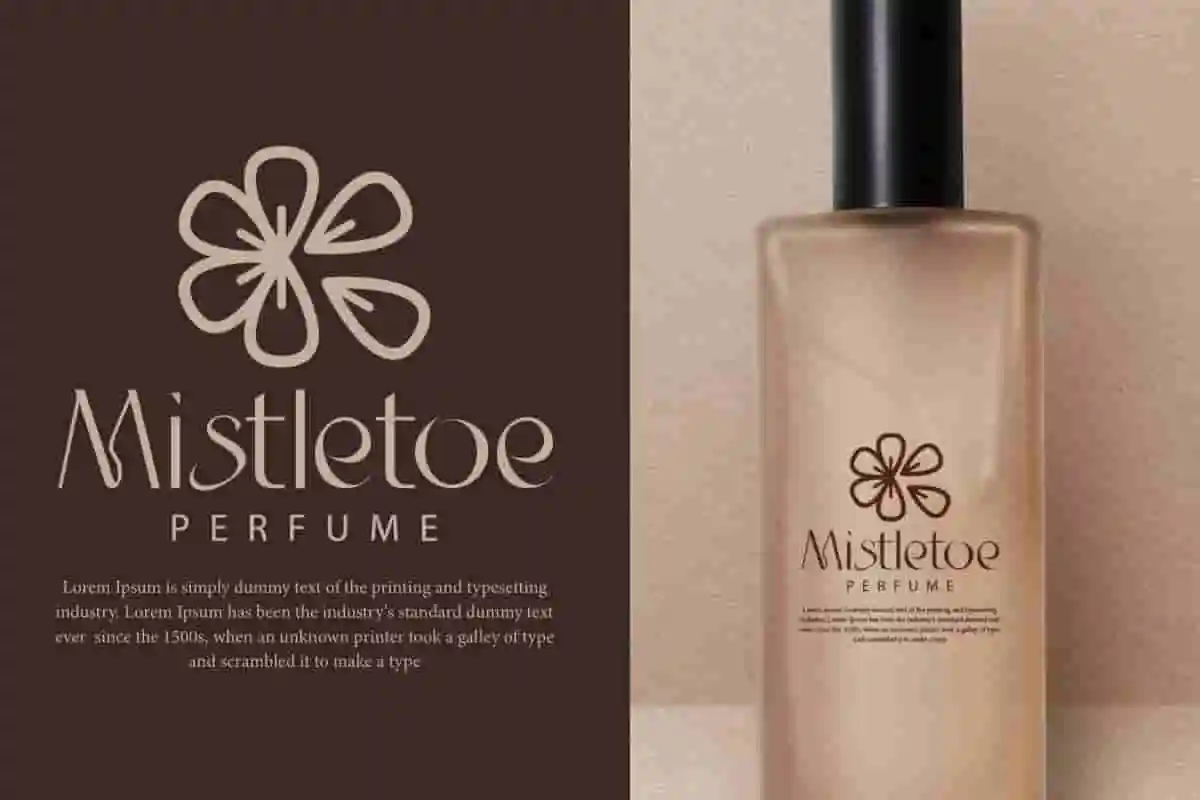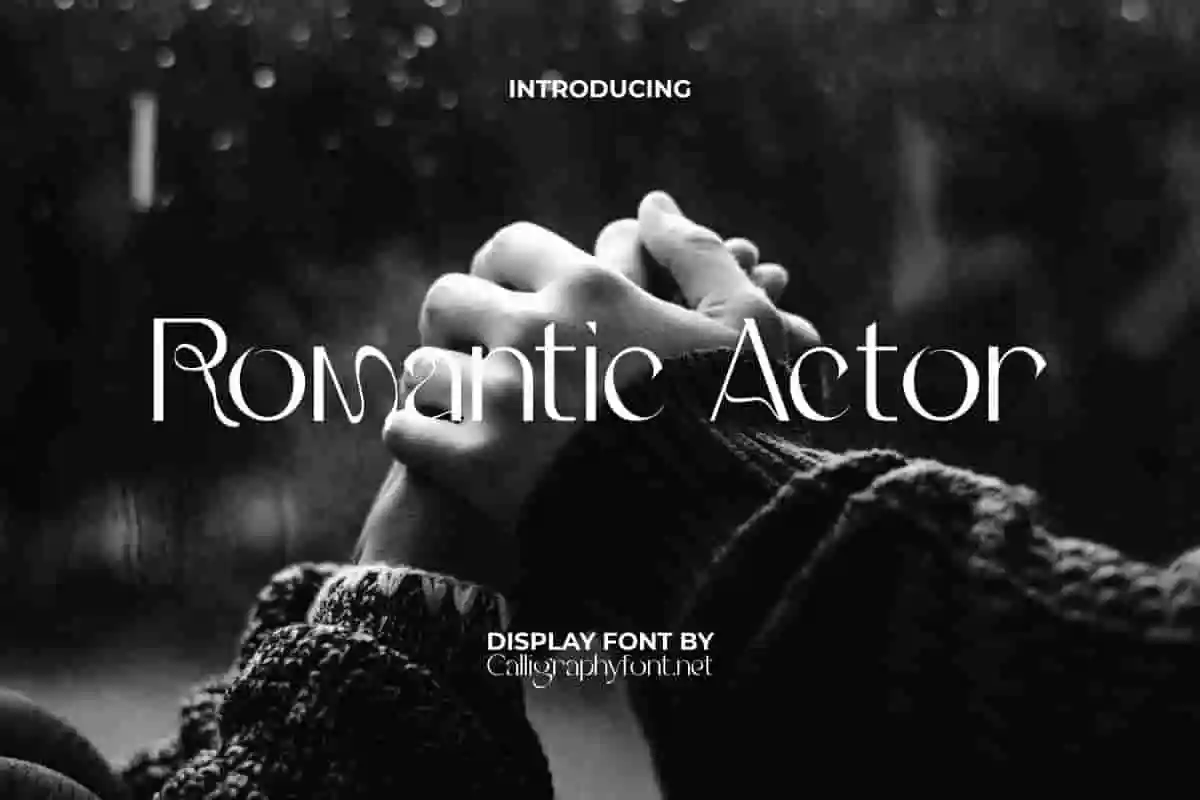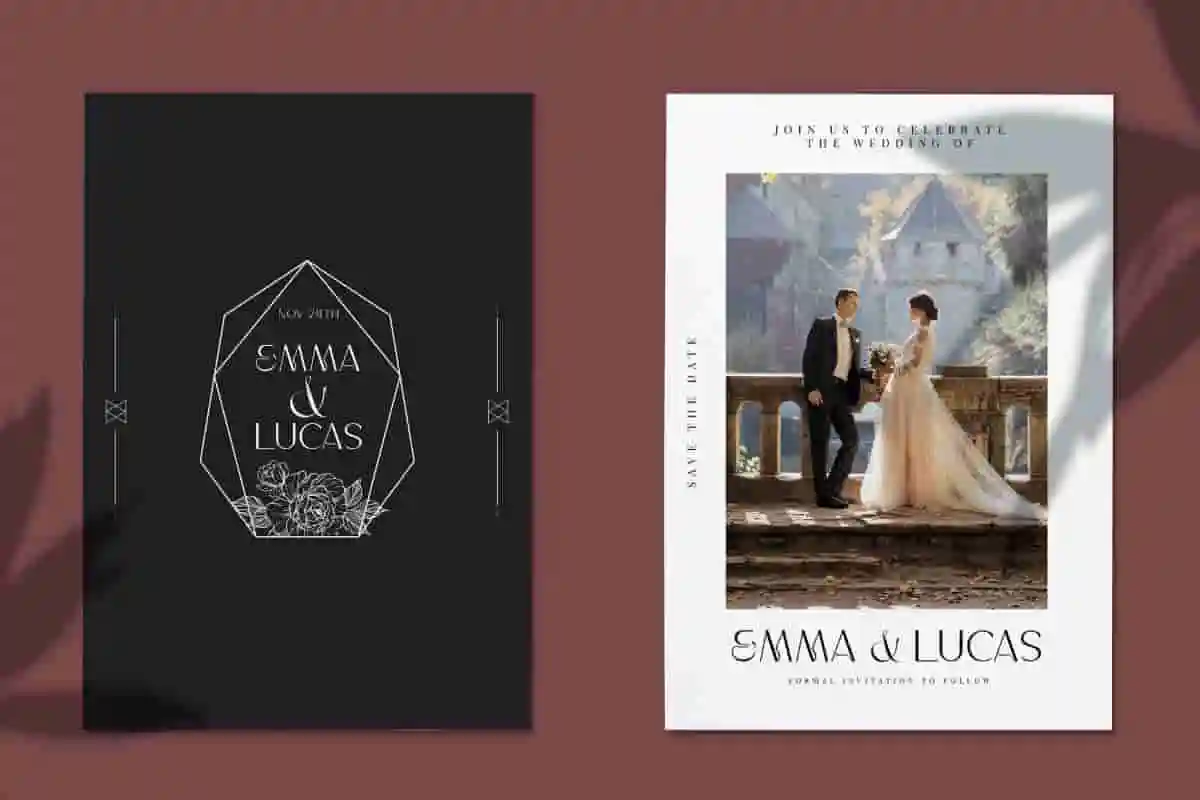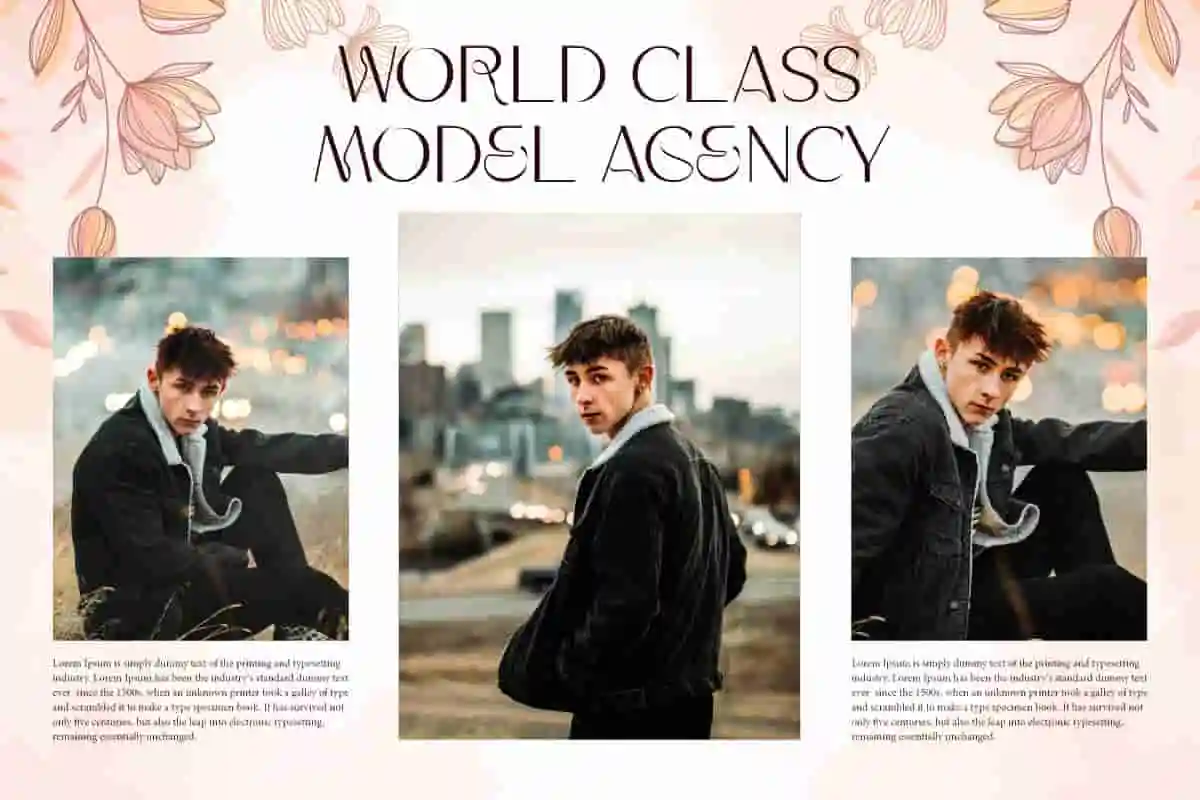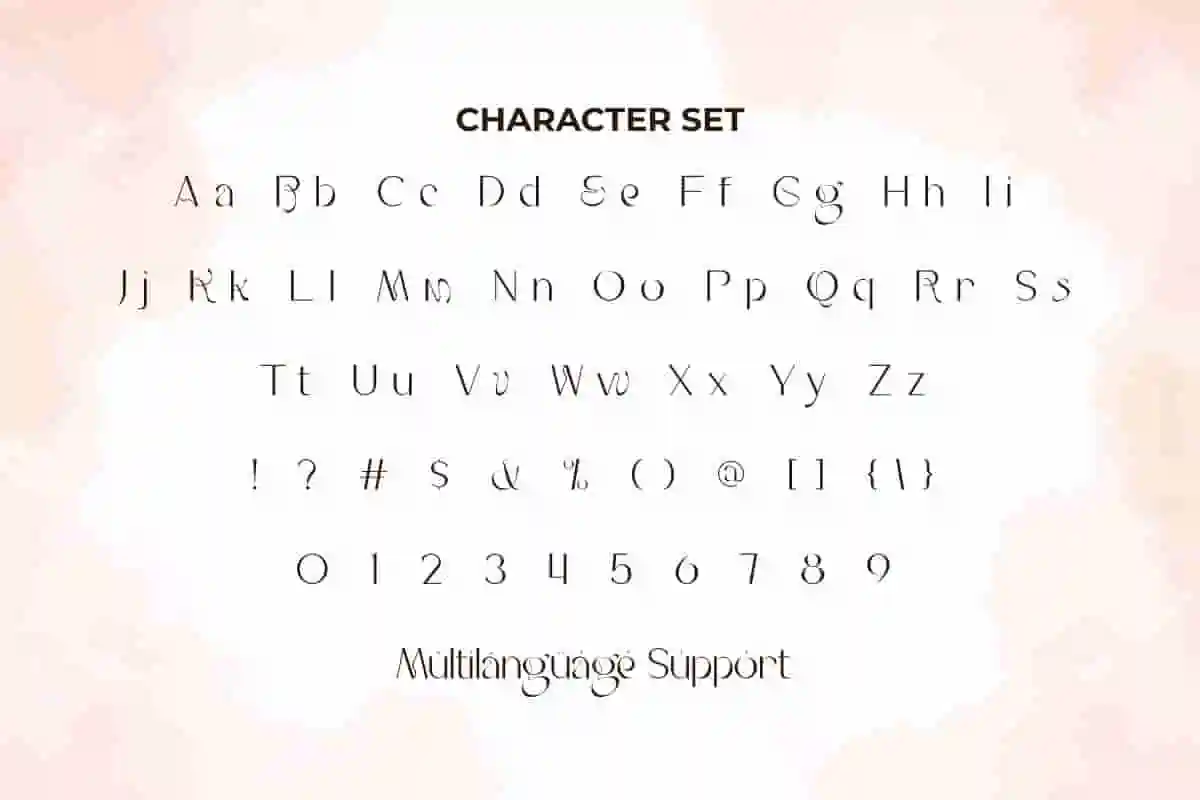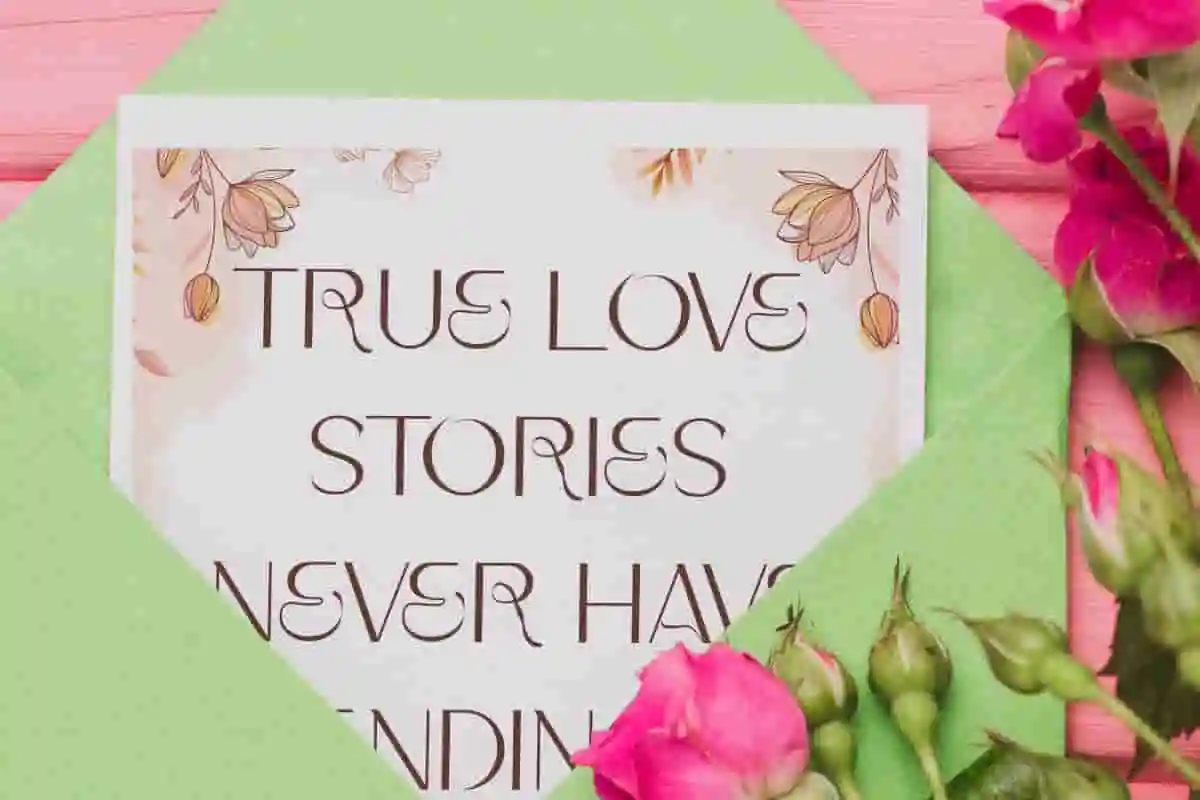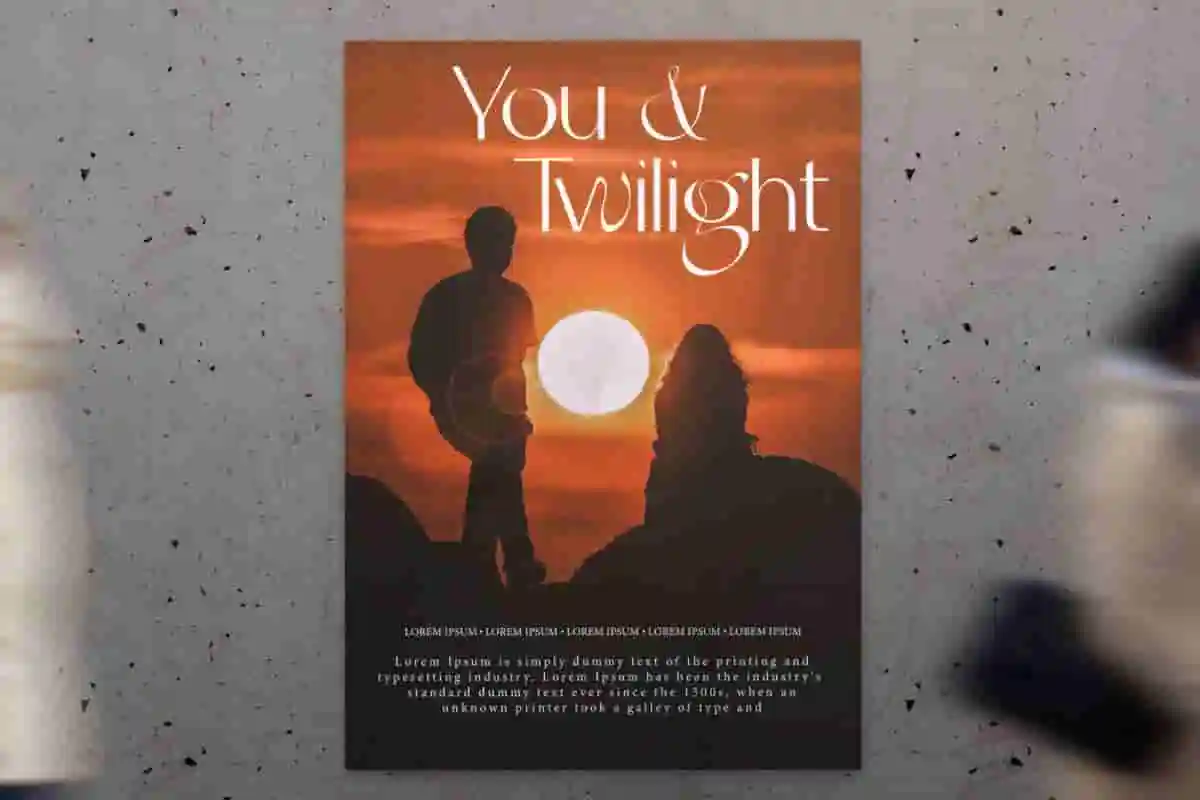
Romantic Actor Font
Romantic Actor Font is a classy display font with a splash of elegance that is certainly unique. Exclusively created to add diversity to the art of writing. These can be incorporated into any creative idea you can think of!
Romantic Actor Font is an elegant modern display font with an eye-catching typeface. It’s inspired by a popular romance movie title so makes a big impact and brings a stylish typeface to any creative project, such as apps, billboard, blog, brand identity, brochure, card, cover, envelope, flyer, header, invitation, label, logo, mock up design, packaging, photo card, poster, brand, quote, screen print, signage, social media post, stationery, sticker, thank you card, title, website, and anything else that would look good with this font.
Romantic Actor Font is a calm display font filled with a touch of beauty that is made to dance in harmony to form a unique typeface that will stand out in any industry, such as accessories, advertisement, apparel, art, bakery, café, cinema, content creator, crafting, entertainment, event organizer, fashion designer, furniture, graphic design, handicraft, homeware, interior design, movie, photographer, printing, publishing, restaurant, vlogger, wedding, writer, and much more.